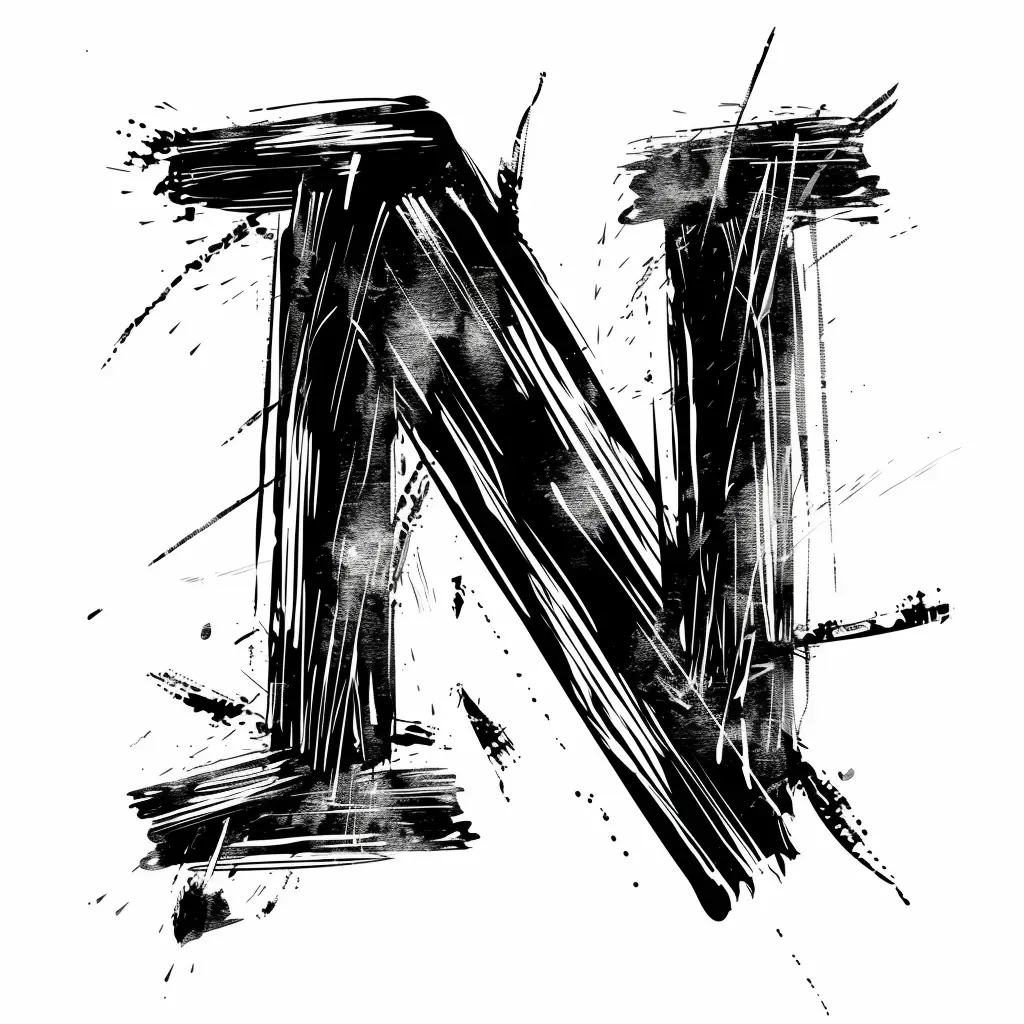
This image features a stylized, hand-drawn letter "N" rendered in bold black brushstrokes against a white background. The design incorporates dynamic, textured lines, splatters, and rough edges, giving it a raw, artistic, and slightly chaotic appearance. The high-contrast black-and-white palette emphasizes the letter’s dramatic, expressive style, with scattered ink splatters and uneven strokes adding to its edgy, handcrafted feel.